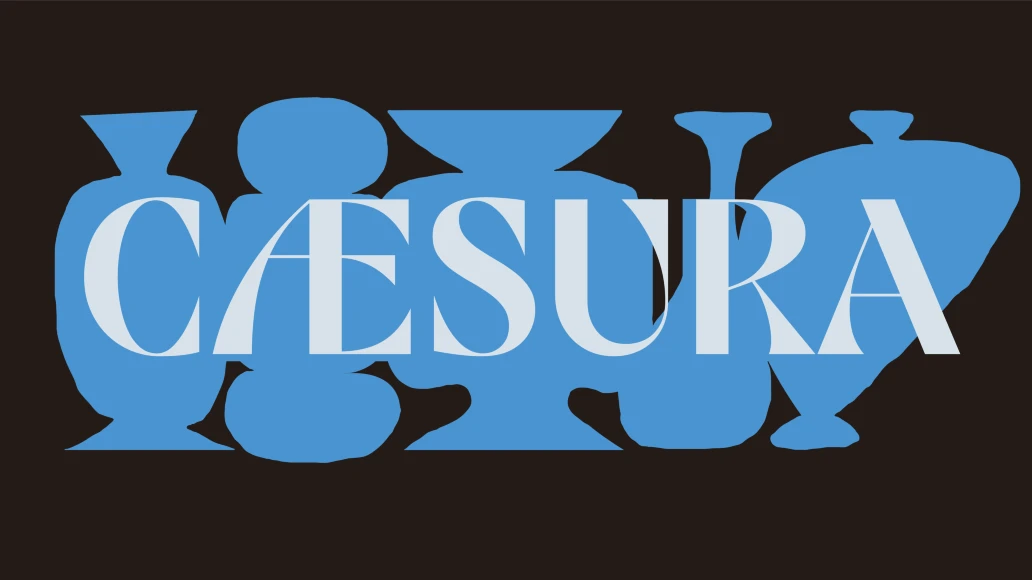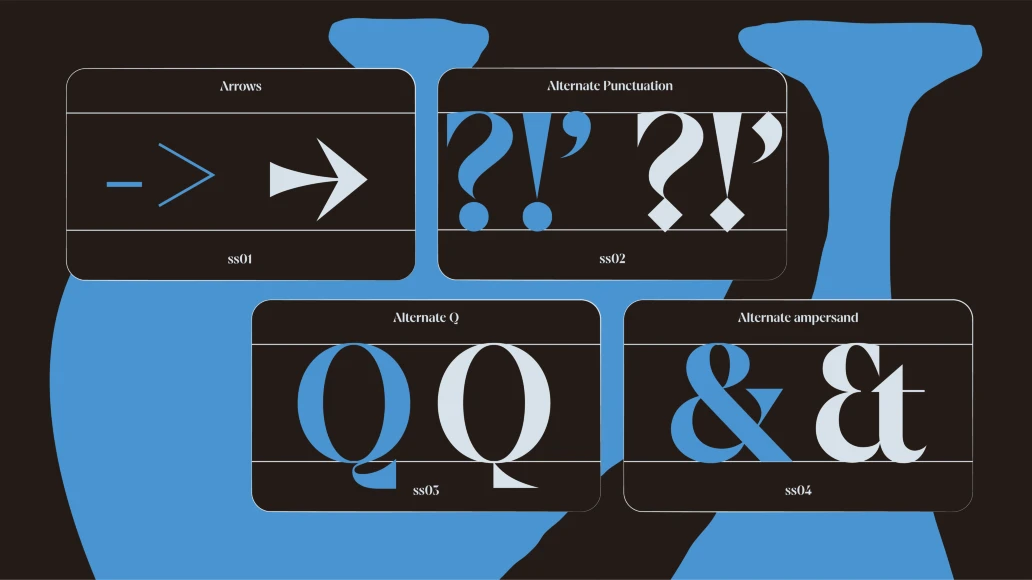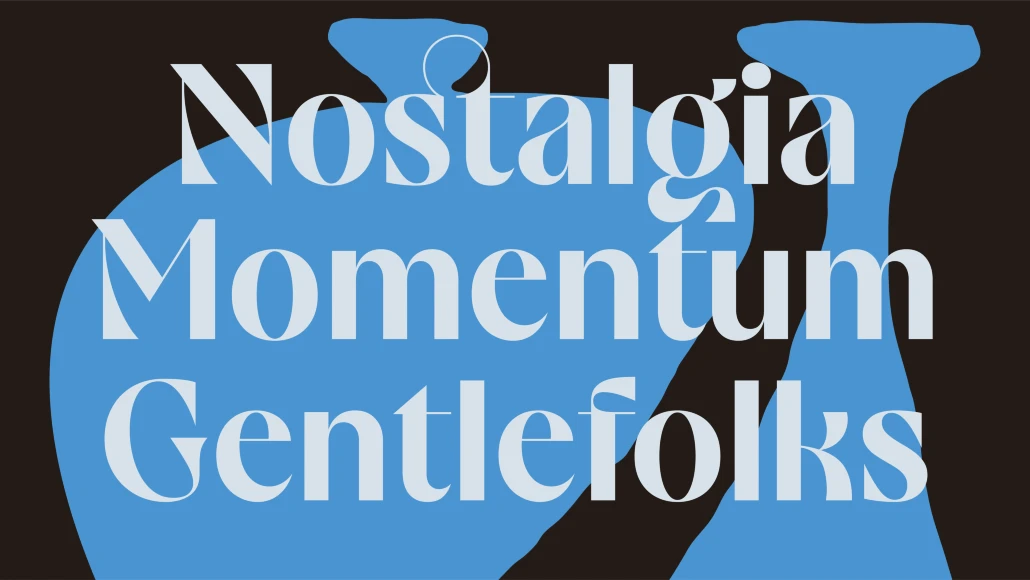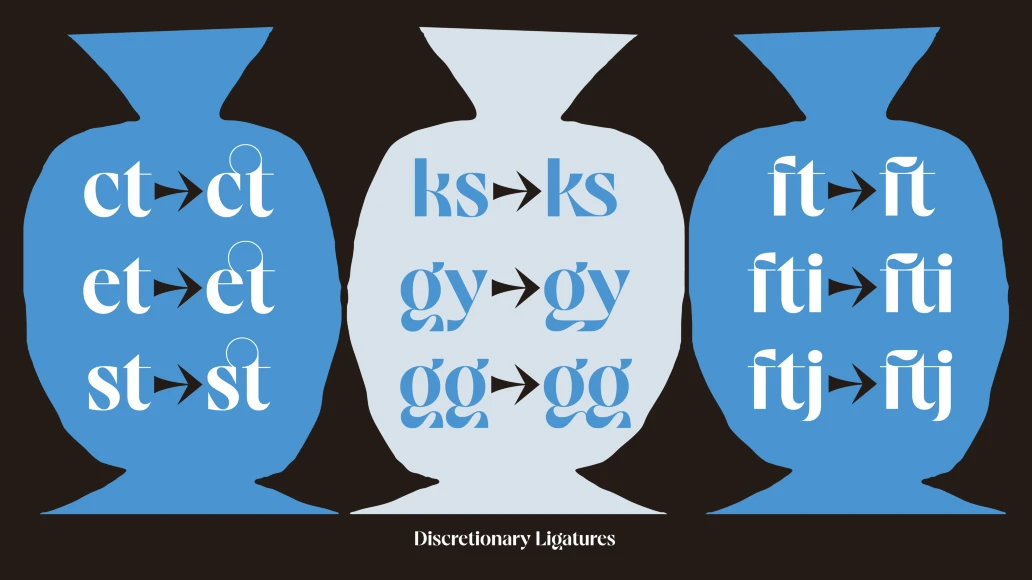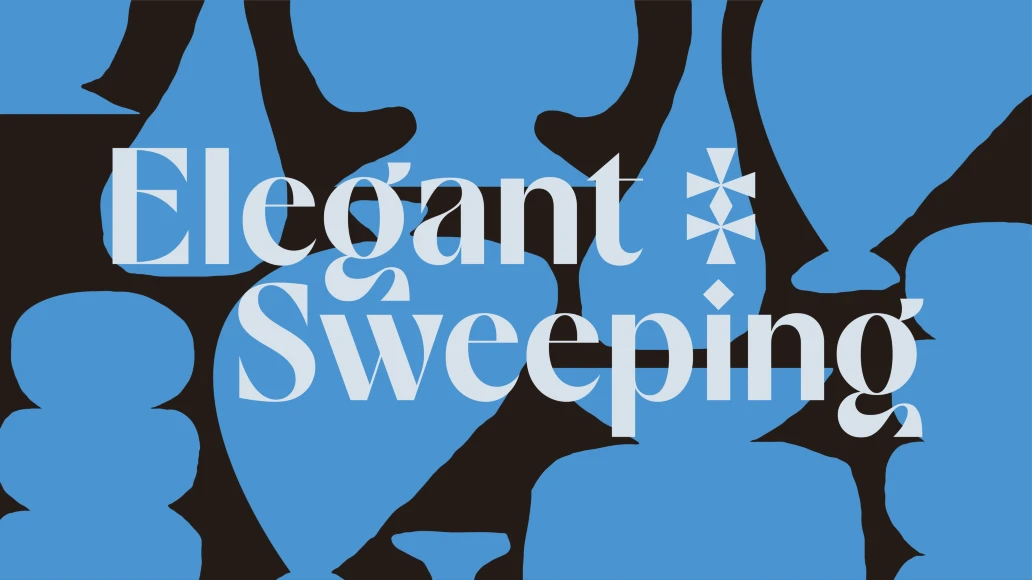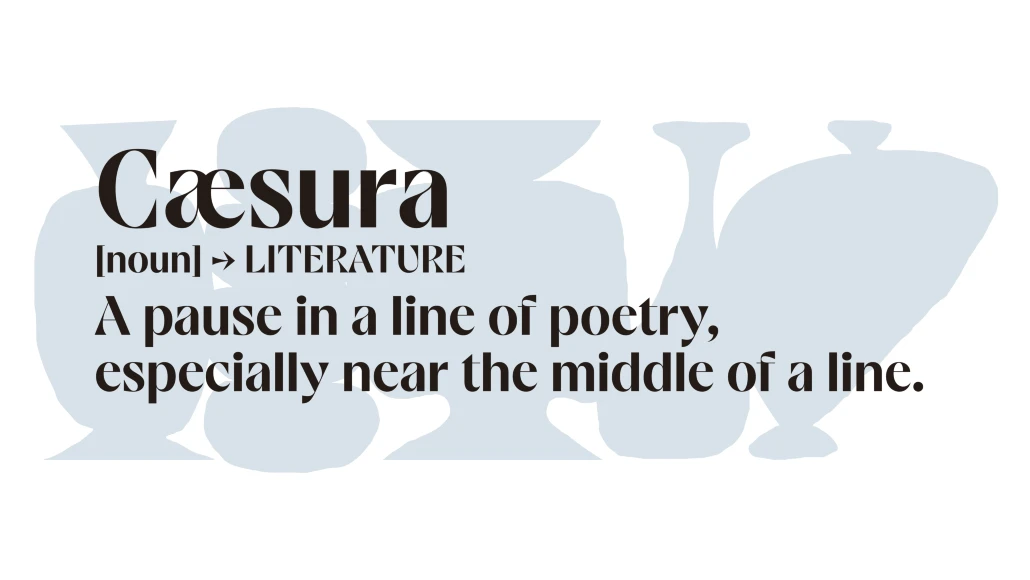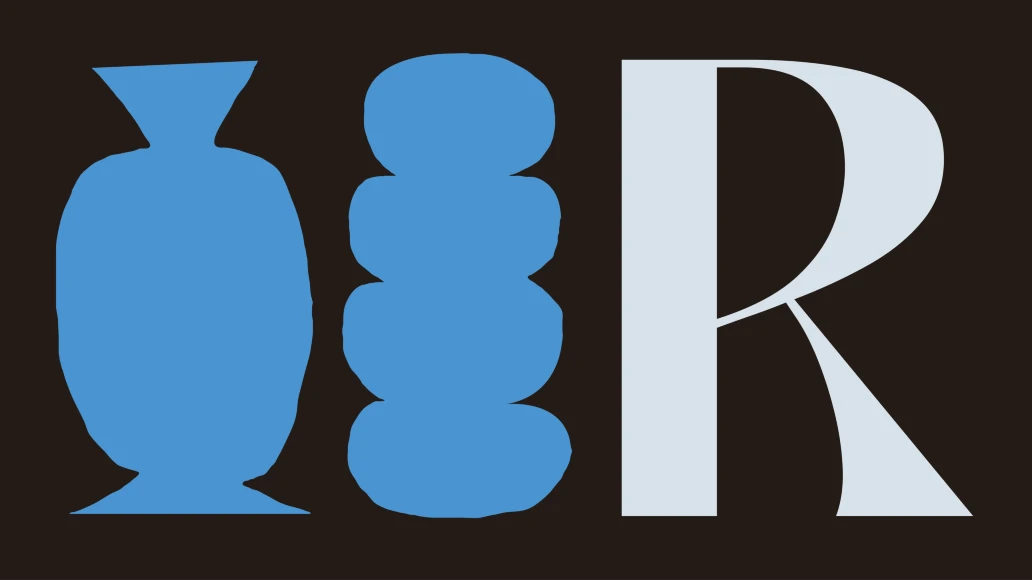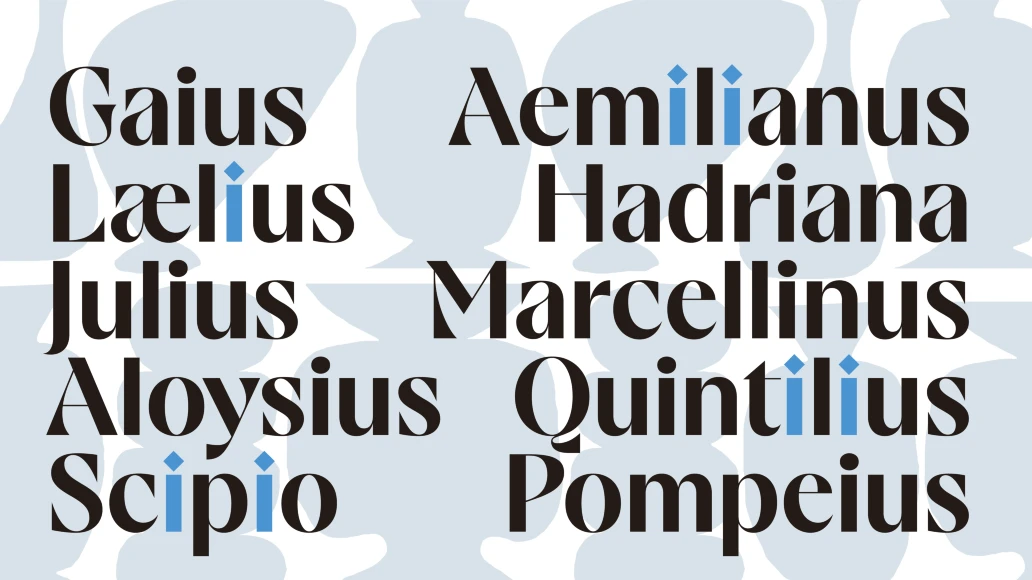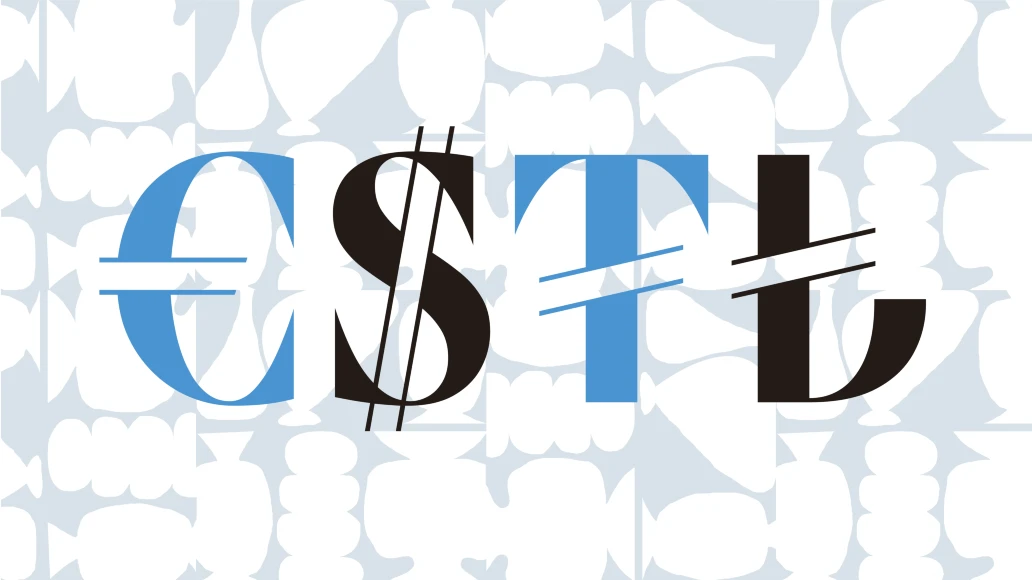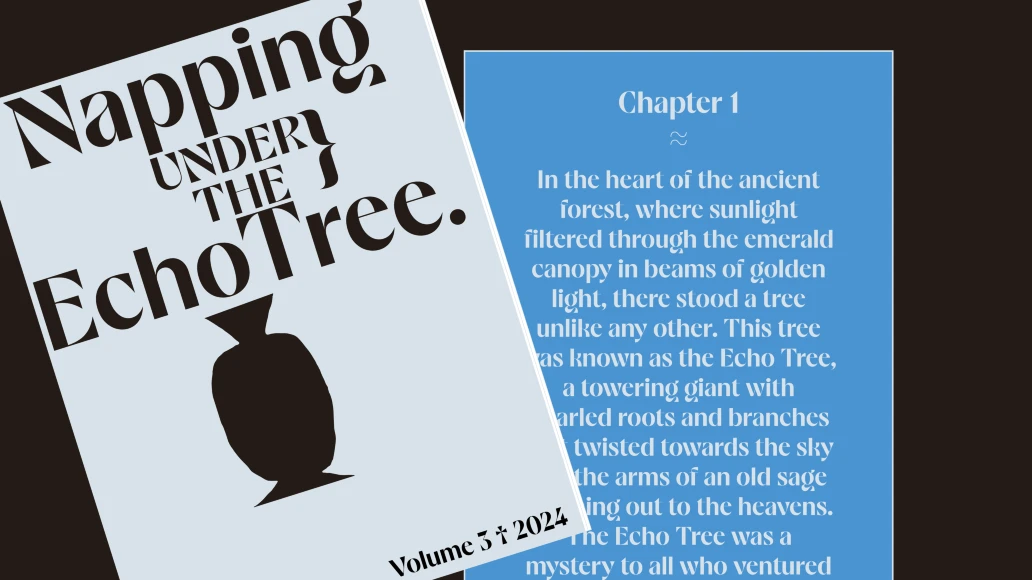
Caesura
Caesura Bold
Cæsura is a high-contrast display typeface merging found lettering styles from mid-century European signage and Japanese calligraphy. Available in a single weight with striking character, it has exaggerated strokes, swashes, and knife-like shapes, balancing the structural with the expressive for a lot of visual appeal. Refined proportions and subtle details make it perfect for editorial content, branding, and user interfaces where a sophisticated typographic voice is desired.